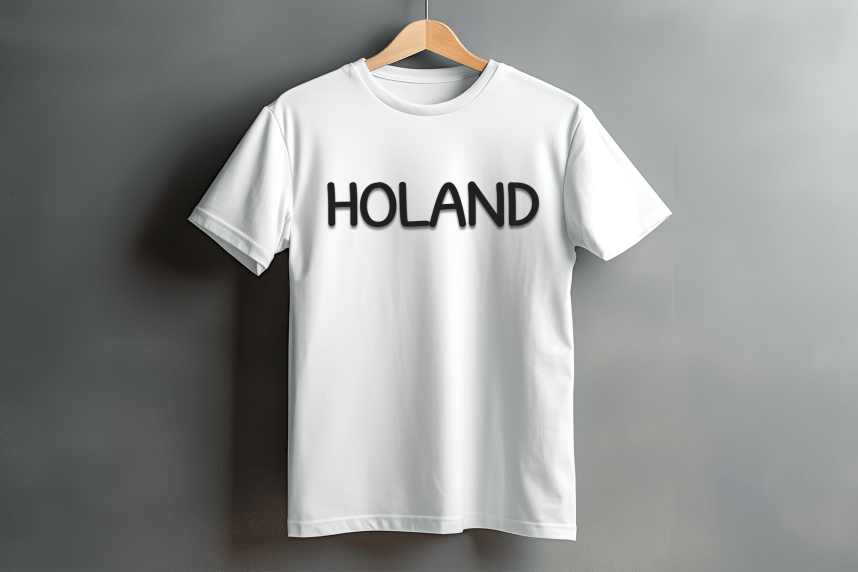
Animal Simple Handmade Font
Animal Simple Handmade Font is a sweet and friendly handwritten display font. Cute and fun, this font is ideal for writing wedding invitations, cards, or any other design that might need a playful touch!